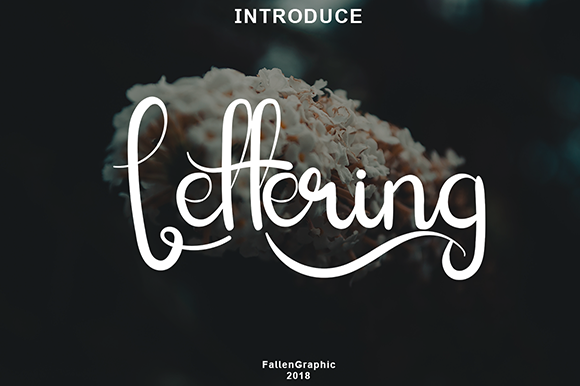
Prepare to be captivated by Lettering Script Font, a captivating script font brimming with charm and personality. This exquisite handwritten font exudes a modern and unique flair that will elevate your designs to new heights. Its meticulously crafted glyphs dance across the page, evoking a sense of elegance and sophistication that will leave your audience spellbound.
Immerse yourself in the boundless creative possibilities that Lettering Script Font unlocks. Whether you're a seasoned designer seeking to add a touch of individuality to your projects or a Cricut enthusiast looking to elevate your creations, this font is your perfect companion. Picture your designs adorned with Lettering Script Font, radiating an aura of timeless beauty that captures hearts and minds.
Lettering Script Font's versatility knows no bounds. Its graceful curves and flowing lines lend themselves effortlessly to a wide spectrum of applications, from eye-catching logos and branding materials to captivating social media graphics and website designs. Unleash your imagination and witness the transformative power of Lettering Script Font as it breathes life into your creative endeavors.
With Lettering Script Font at your fingertips, you'll discover a world of typographic wonders. Its intricate details and expressive characters add depth and dimension to your designs, making them stand out from the crowd. Experience the joy of crafting designs that resonate with your audience, leaving a lasting impression that lingers long after they've encountered your work.
Don't settle for ordinary fonts that blend into the background. Embrace the allure of Lettering Script Font and watch as your designs take center stage. Its unmatched beauty and elegance will captivate your audience, leaving them in awe of your creative genius. Let Lettering Script Font be your artistic muse, inspiring you to create designs that transcend the boundaries of imagination.
As a designer, your work is your legacy. Lettering Script Font provides the perfect foundation for creating designs that speak volumes about your artistry and professionalism. Its timeless appeal ensures that your creations will endure the test of time, leaving a lasting impression on generations to come.